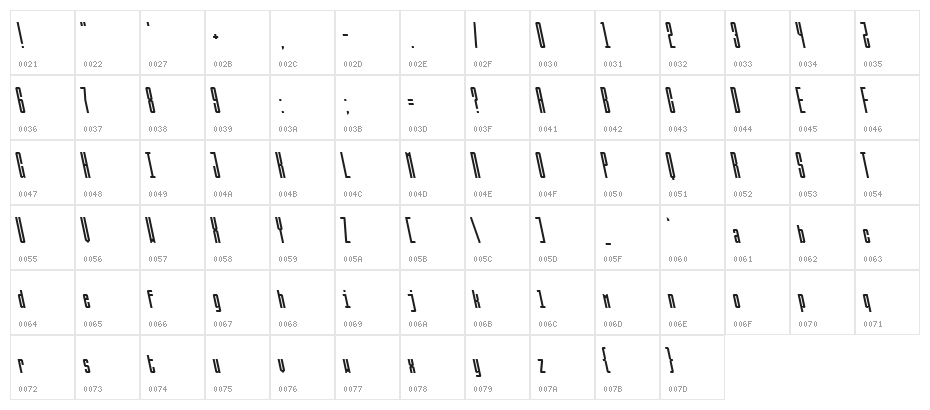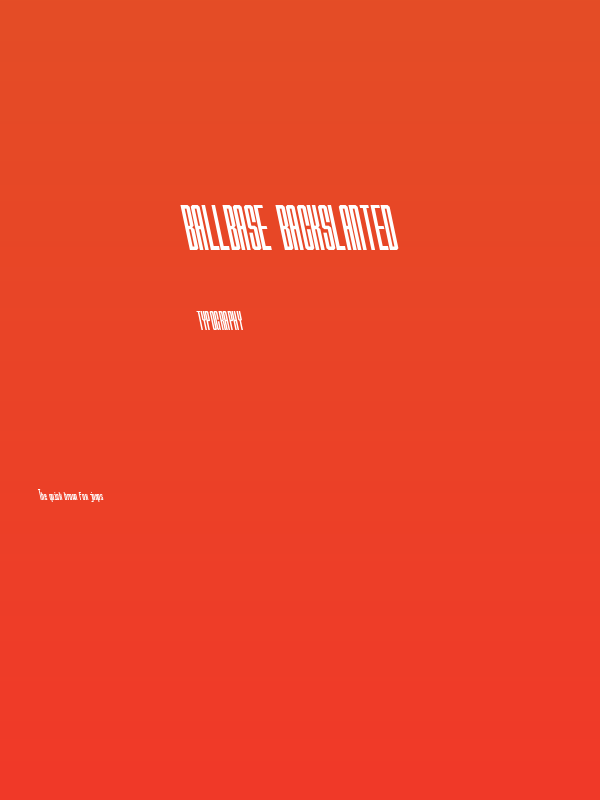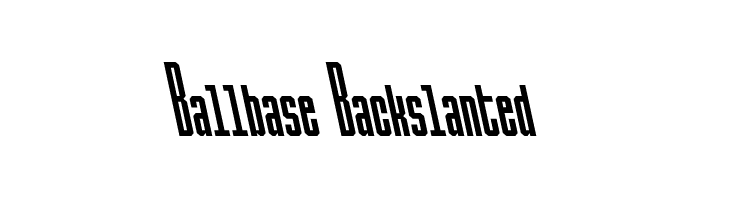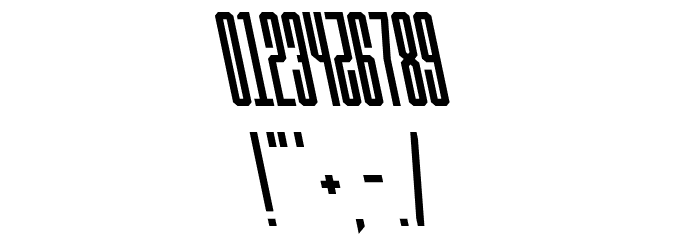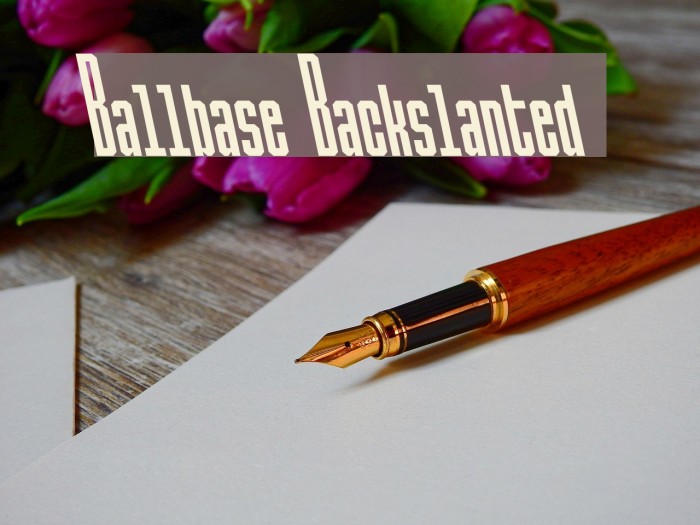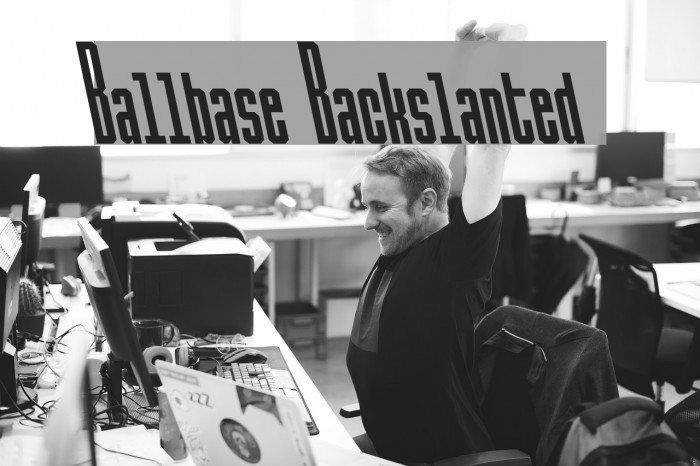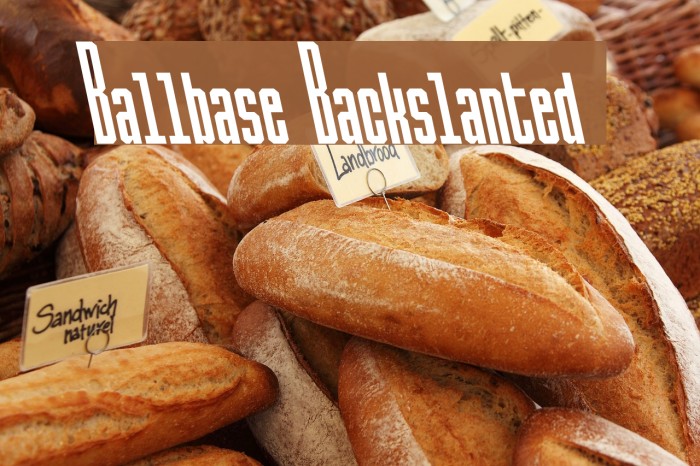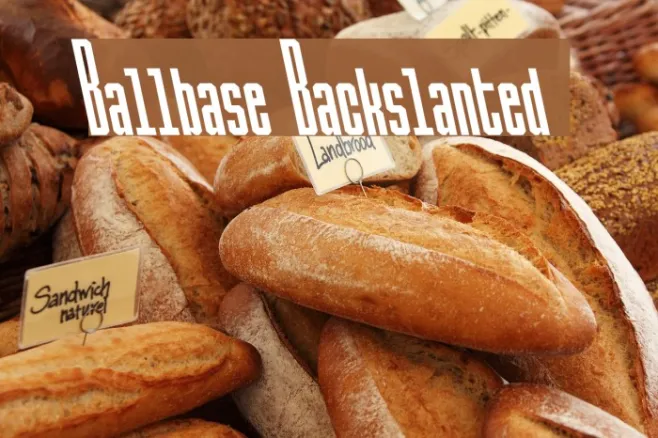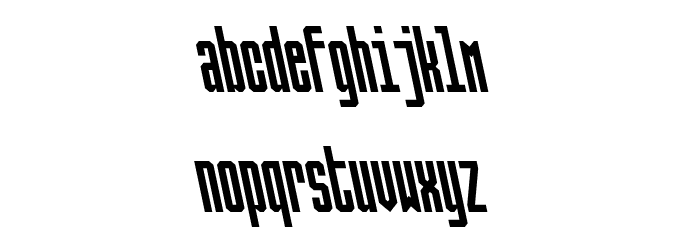
Ballbase Backslanted Font
Ballbase Backslanted Description
This font features a distinctive backslant, giving it a dynamic and energetic appearance. The characters are tall and narrow, with a condensed width that emphasizes verticality. The strokes are consistent in thickness, providing a uniform look across all characters. The uppercase and lowercase letters maintain a cohesive style, with sharp angles and clean lines. The numerals and special characters follow the same design principles, ensuring a harmonious overall appearance. This font's unique slant and structure make it stand out, offering a modern twist on traditional typography.